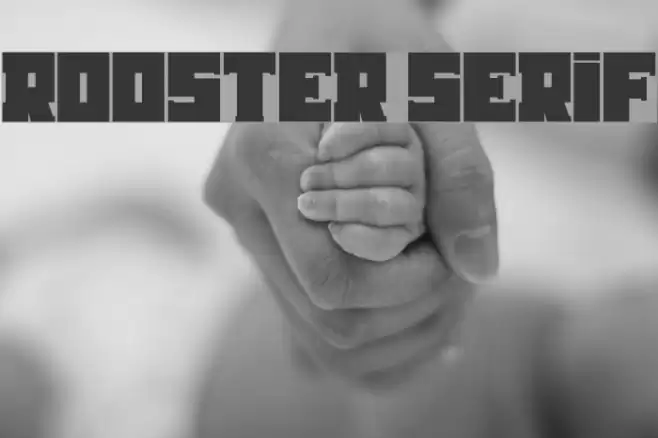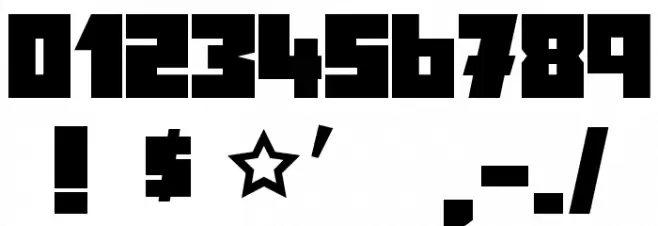
Rooster Serif Font
Rooster Serif Description
This font features a bold and striking design with thick, blocky characters that convey a sense of strength and impact. The letters are heavily stylized with sharp angles and unique cuts, giving them a modern and edgy appearance. The uppercase and lowercase letters maintain a consistent weight, contributing to a cohesive look. Numbers and special characters follow the same bold style, ensuring uniformity across all text elements. The font's design is ideal for making a statement, with its high contrast and distinctive shapes drawing attention.
A bold, blocky font with sharp angles and high contrast, perfect for impactful designs from Uncategorized fonts.
- Proposed Projects: Ideal for posters, headlines, branding materials, and any project requiring a strong visual impact.